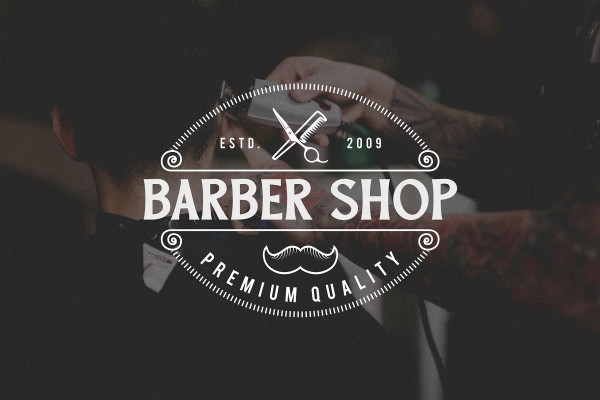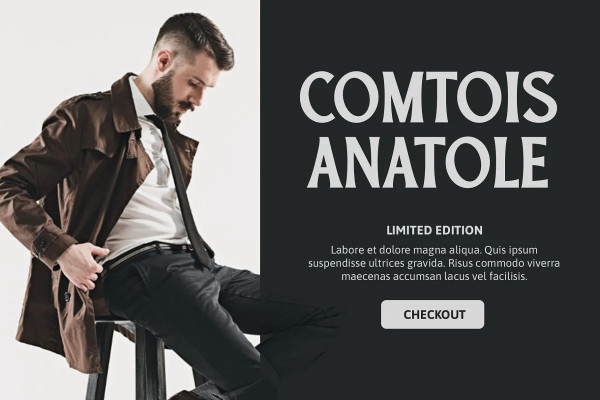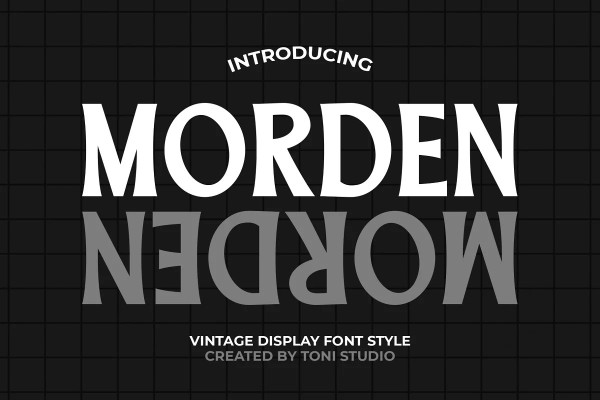
Morden Font
Morden Font, Morden serif display, a masculine vintage display font with a modern twist. This nostalgic font is super fun to work with and perfect for logos and designers but works really well for all purposes. Perfect for editorial, branding and poster design etc. Multilingual Support